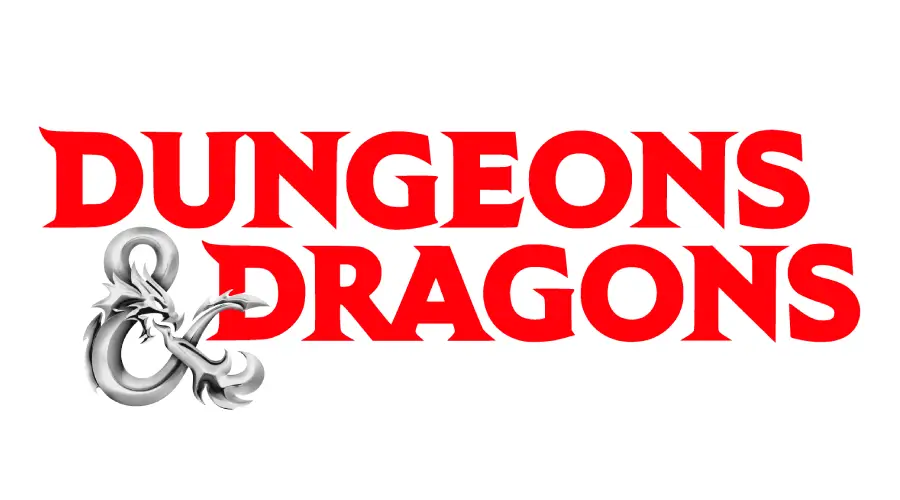
The Dungeons & Dragons Font is a distinctive typeface closely associated with the iconic fantasy role-playing game and its branding. While there isn’t an official font explicitly named “Dungeons & Dragons Font,” the typography used in its logo and promotional materials has a unique, medieval, and adventurous style that resonates with the game’s theme.
Similar Fonts to Dungeons & Dragons Font
Based on my findings, here are some fonts that closely resemble the Dungeons & Dragons logo and branding:
ITC Elan Pro Black by ITC This font is strikingly similar to the one used in the Dungeons & Dragons logo, featuring bold, serif-style lettering with a fantasy-inspired design.
Dragon Hunter by Maknastudio A rugged, medieval-style font that captures the adventurous spirit of Dungeons & Dragons.
Masquerade by Martin Wait This font has a vintage, handcrafted feel, making it a great alternative for recreating the Dungeons & Dragons aesthetic.